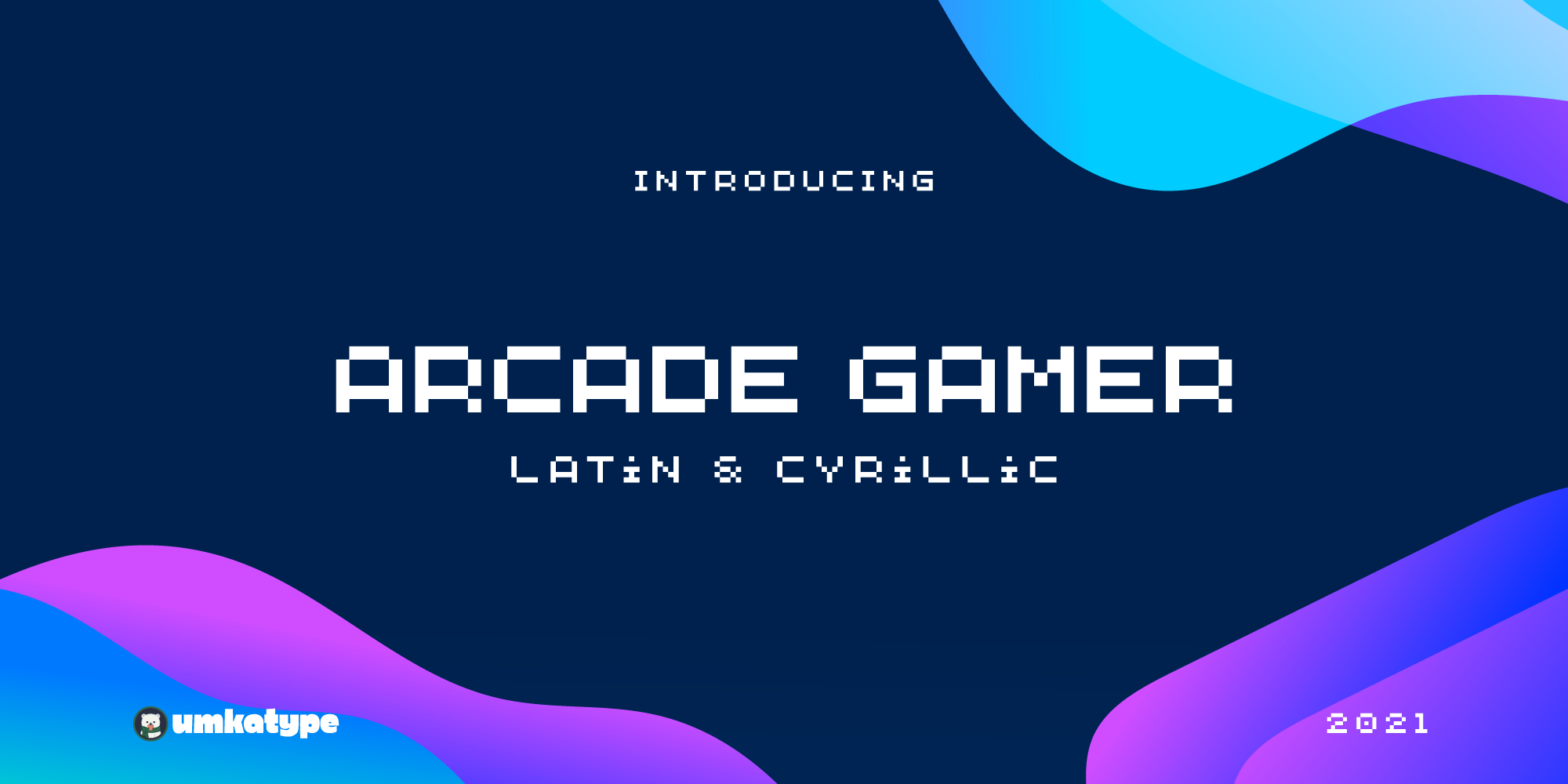
Arcade Gamer Font is perfect for retro gaming arcade branding, video game tournament graphics, esports competition materials, retro gaming museum displays, arcade cabinet designs, gaming convention signage, pixel art gallery exhibitions, nostalgic gaming merchandise, competitive gaming tournaments, and classic arcade restoration projects.
What makes Arcade Gamer Font so exciting is its electrifying embodiment of classic arcade culture and retro gaming nostalgia through pixelated letterforms that capture the pure excitement and addictive energy of golden age video gaming experiences. The font's design philosophy celebrates the revolutionary impact of arcade gaming on popular culture, featuring blocky proportions, digital curves, and 8-bit inspired details that mirror the glowing screens of classic arcade cabinets, the satisfying clicks of joystick controls, and the triumphant moments when players achieved high scores and conquered digital worlds. Each character pulses with gaming energy and competitive spirit, creating a visual language that instantly communicates gaming authenticity, retro coolness, and the timeless appeal of arcade culture that continues to inspire new generations of gamers and game developers worldwide.
The Arcade Gamer Font family includes gaming variations: Regular, Bold, Light, Medium, Condensed, Extended, Italic, Pixel, and Retro styles. Each variation maintains the font's characteristic gaming authenticity while offering different levels of arcade intensity and retro gaming detail for various gaming, entertainment, and nostalgic design applications.
When searching for a typeface that embodies the essence of arcade gaming culture and retro video game aesthetics, Arcade Gamer Font Free Download represents the perfect fusion of nostalgic gaming energy with contemporary functionality that elevates any project to new levels of gaming authenticity and arcade appeal.
The digitally crafted letterforms of Arcade Gamer Font demonstrate superior attention to gaming design principles, featuring pixelated proportions, arcade spacing, and retro curves that ensure optimal readability while maintaining the font's distinctive gaming character. Its versatile design adapts seamlessly from intimate gaming accessories to massive gaming convention displays.
Professional designers working on gaming companies, entertainment venues, and nostalgic gaming projects particularly value the font's ability to convey arcade authenticity, gaming culture credibility, and retro appeal. The typeface works exceptionally well for projects targeting gamers, retro enthusiasts, and anyone seeking to project gaming positioning and arcade excellence.
The comprehensive OpenType features of Arcade Gamer Font include gaming alternates, pixelated ligatures, and specialized arcade characters that enable designers to create authentic gaming typography while maintaining the font's distinctive retro character throughout all design elements and gaming applications.